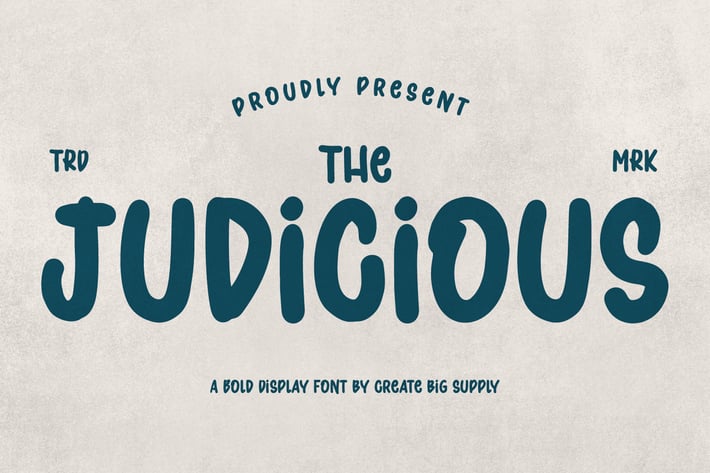
Professional Display Font for Logos
Judicious is a clean, professional display font tailored for high-end logo design and branding. Its modern yet timeless aesthetic is perfect for fashion labels, editorial headlines, corporate identities, and premium packaging.
With its elegant geometry and strong legibility, Judicious elevates your brand’s visual presence.
Key Features:
- Sleek and professional display style
- Perfect for logos, branding, and titles
- Elegant and refined letterforms
- Minimalist look with strong impact
- Uppercase and lowercase letters
Let Judicious help define your visual identity with style and confidence.